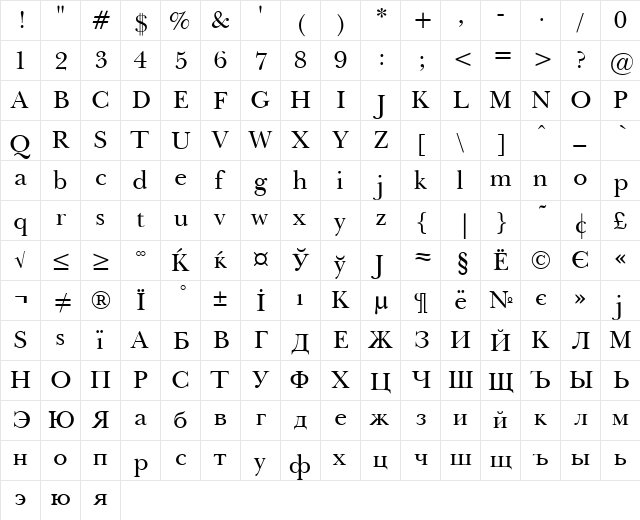
Pasma Medium
Design Context for Pasma Typeface
Pasma offers clean, dependable letterforms without strong stylistic allegiance, making it a practical choice for designers who need flexibility.
Pro Tip: Use Pasma in both headline and body roles to test its range before committing to a single application.